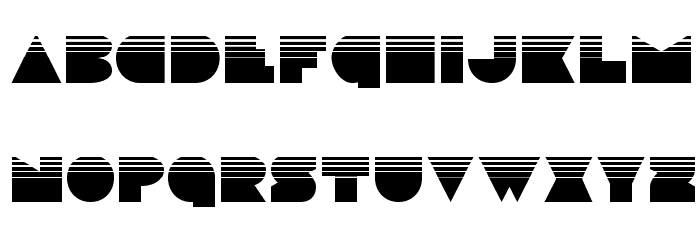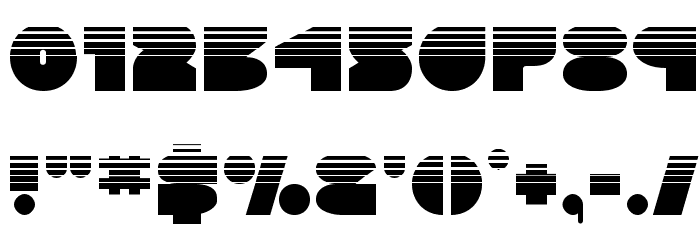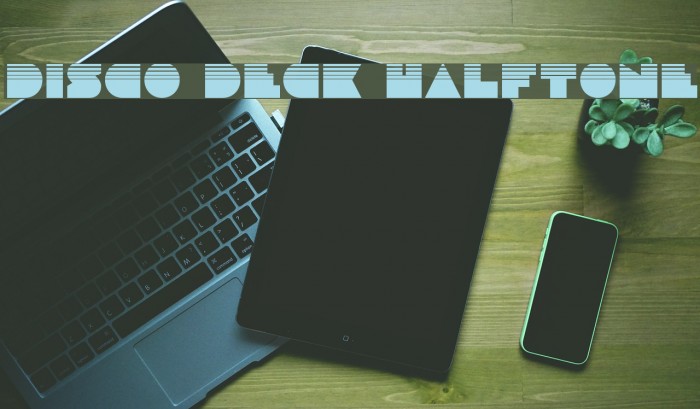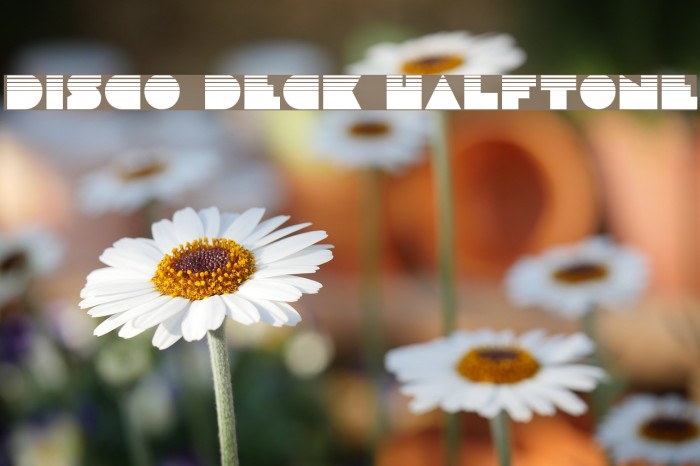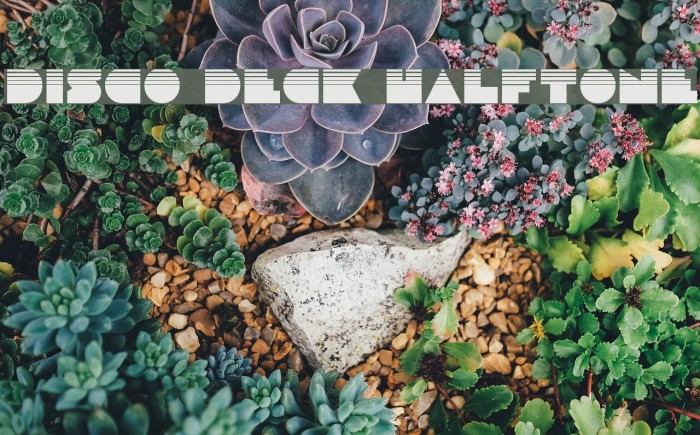
Disco Deck Halftone Font
This font features a bold, geometric style with a distinct halftone pattern that gives it a retro, disco-inspired appearance. The characters are constructed with solid, block-like shapes, interspersed with horizontal lines that create a sense of movement and rhythm. The uppercase and lowercase letters share a consistent design, emphasizing the boldness and unique aesthetic. The numbers and special characters maintain the same stylistic elements, ensuring a cohesive look across all glyphs. This font's striking design makes it ideal for projects that require a vintage or playful touch.
A bold, geometric font with a retro halftone pattern, perfect for vintage designs.
- Proposed Projects: Ideal for retro-themed posters, album covers, event flyers, and branding that seeks a playful, vintage vibe.
- Overall Style: Vintage